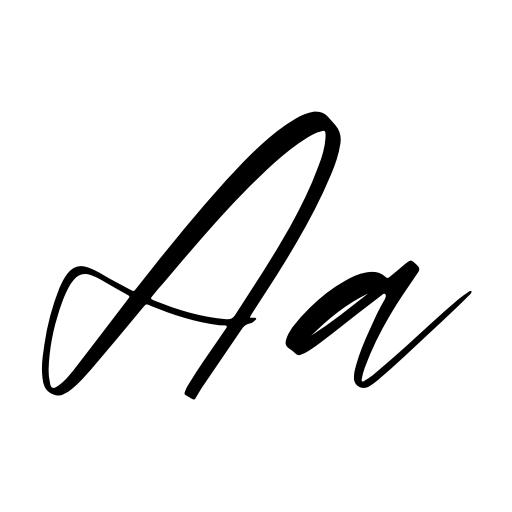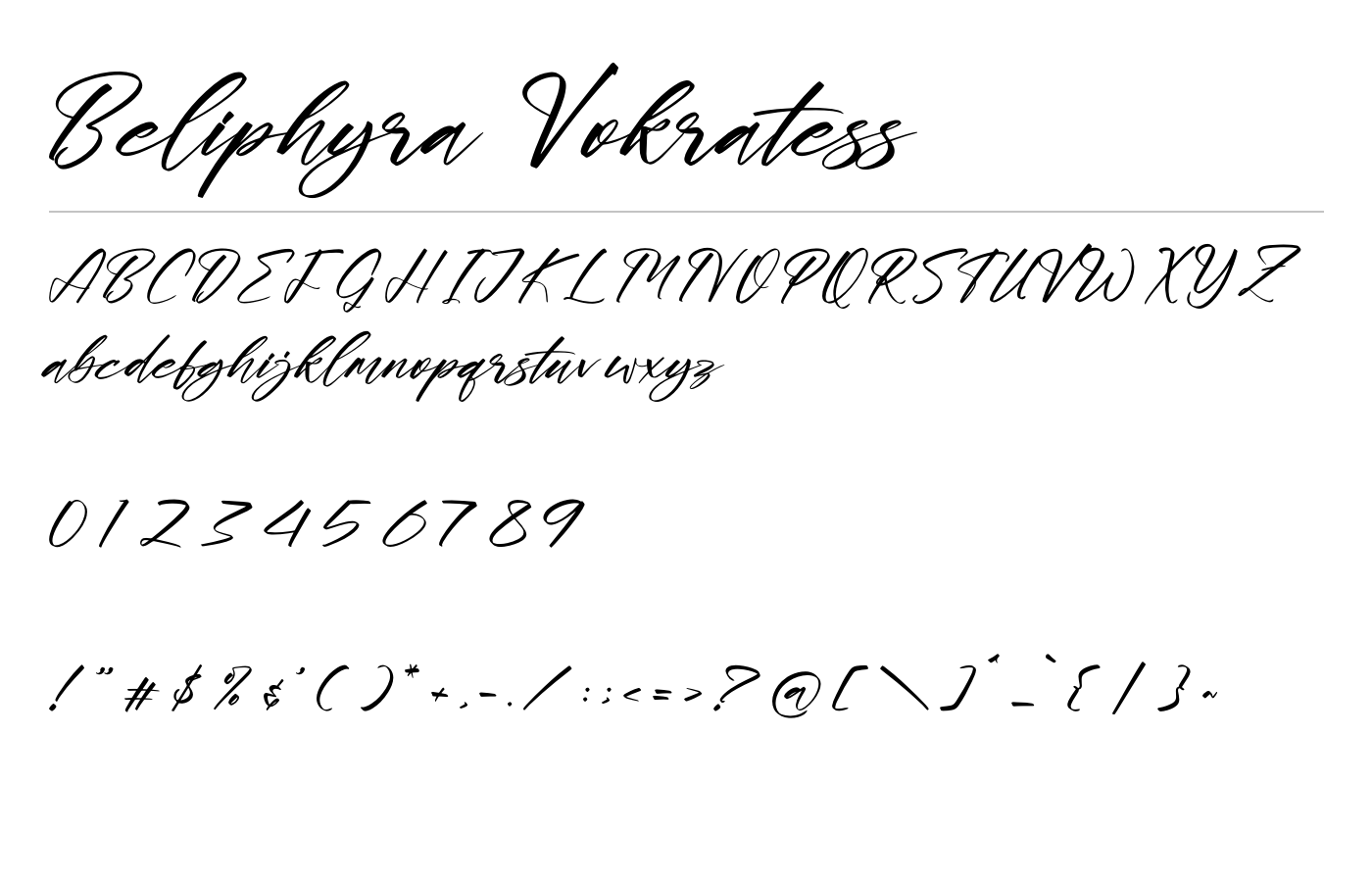
Beliphyra Vokratess is an elegant script font featuring fluid, hand-drawn letterforms with a delicate and modern flair. Its light, slightly condensed weight and dynamic strokes give it a stylish, sophisticated personality ideal for fashion branding, wedding invitations, and elegant logos. This font excels in designs that require a refined, personal touch with a contemporary yet graceful feel.
Beliphyra Vokratess Font
About Beliphyra Vokratess Font